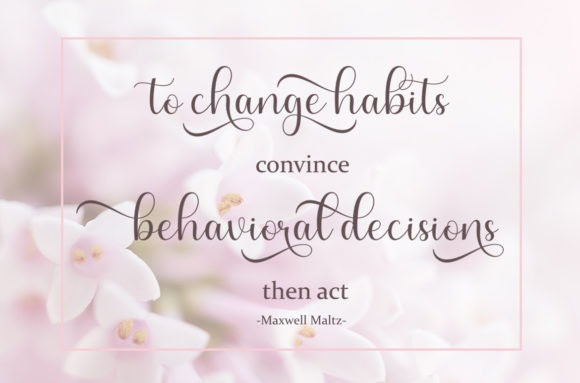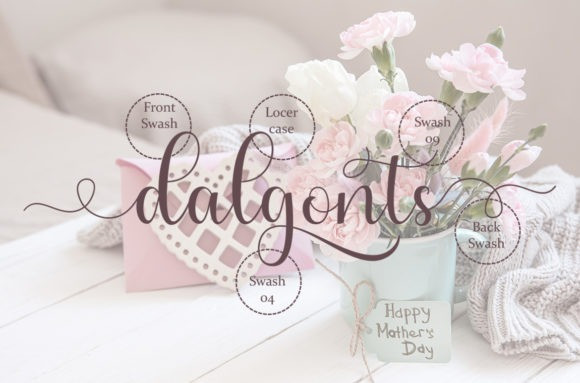
Wonderful Script Typeface
Wonderful Script Typeface is a lovely and delicate script font that exudes elegance and class. This font was particularly crafted for those who need a beautiful and refreshing look to their designs. Wonderful is PUA encoded which means you can access all glyphs and swashes with ease!